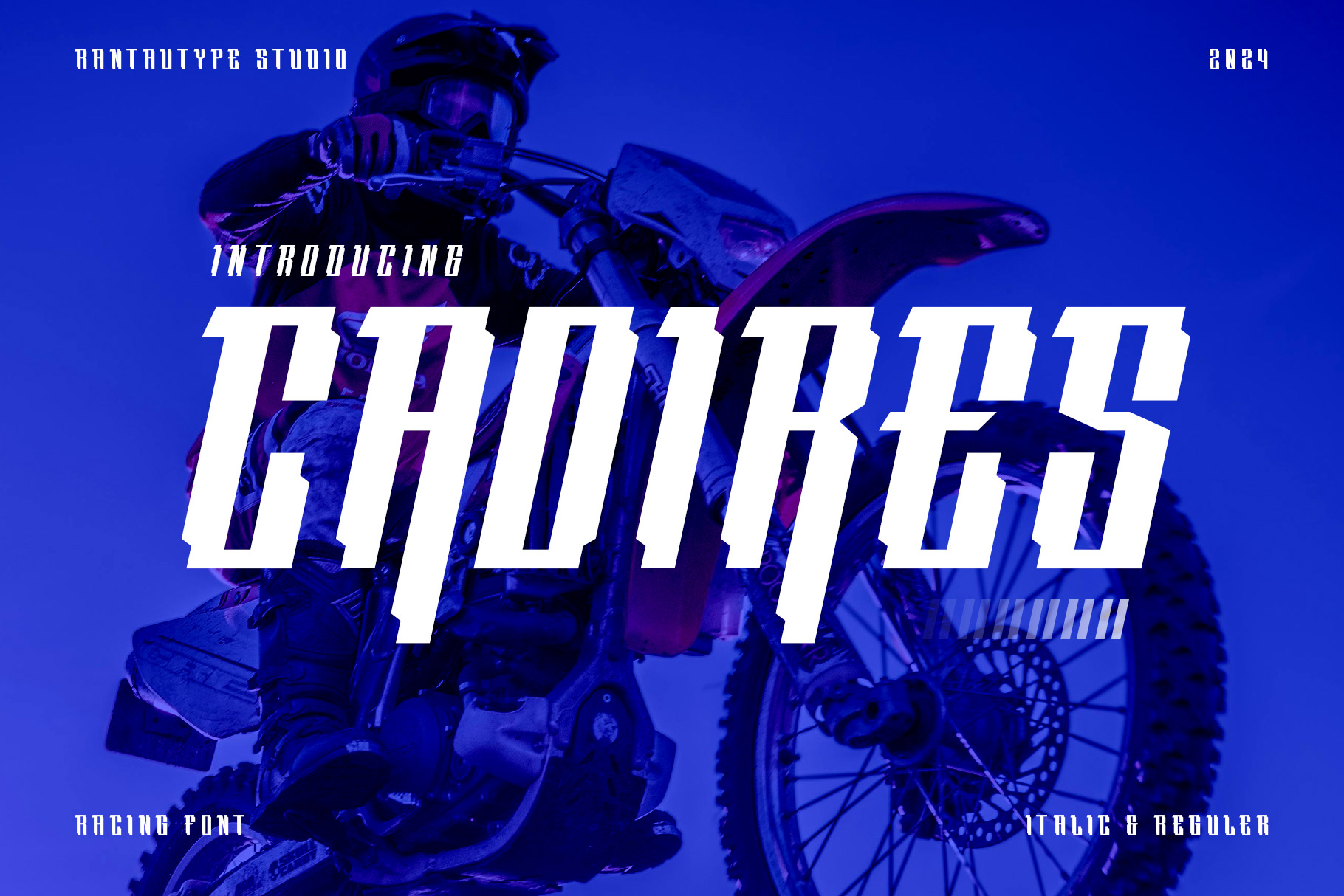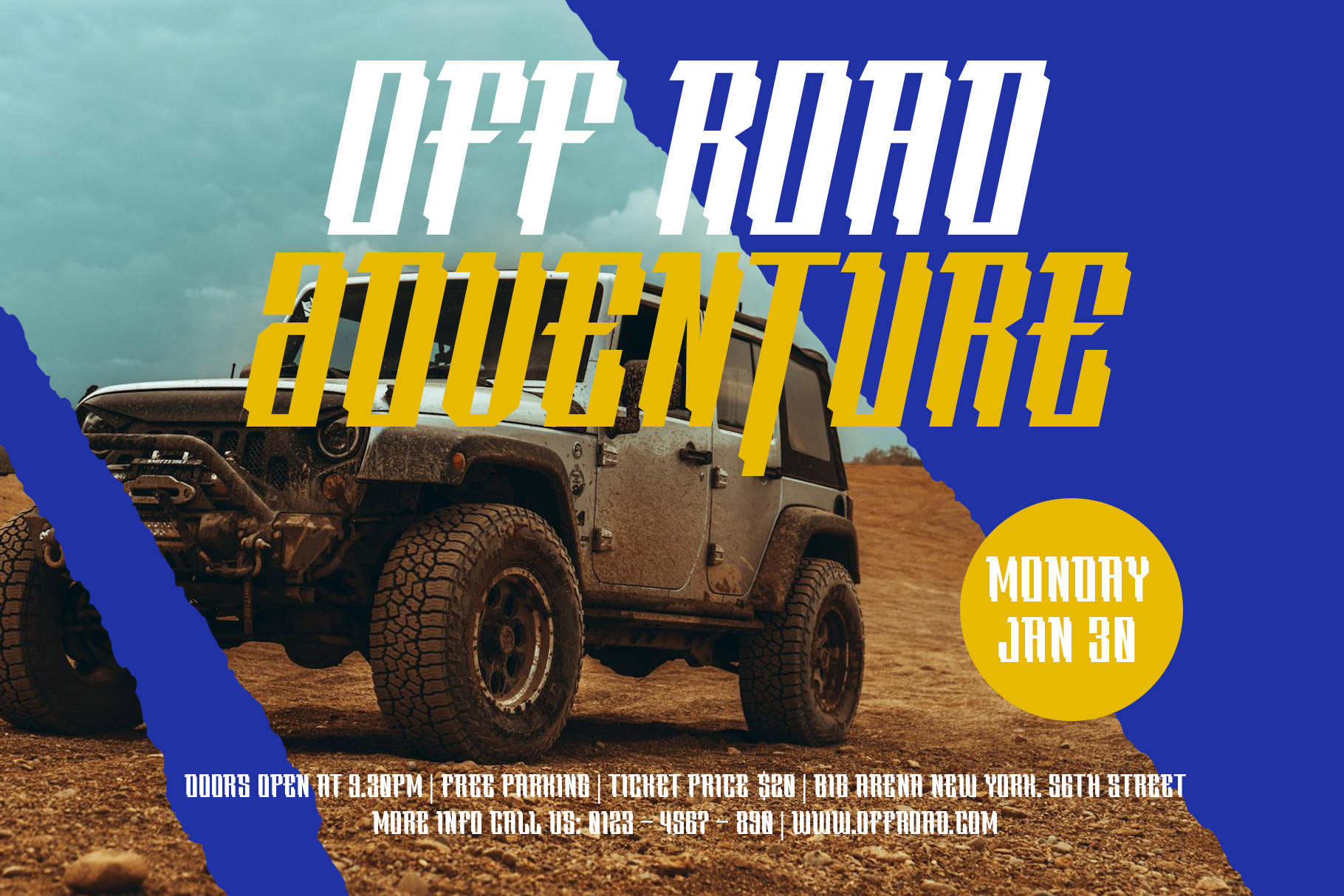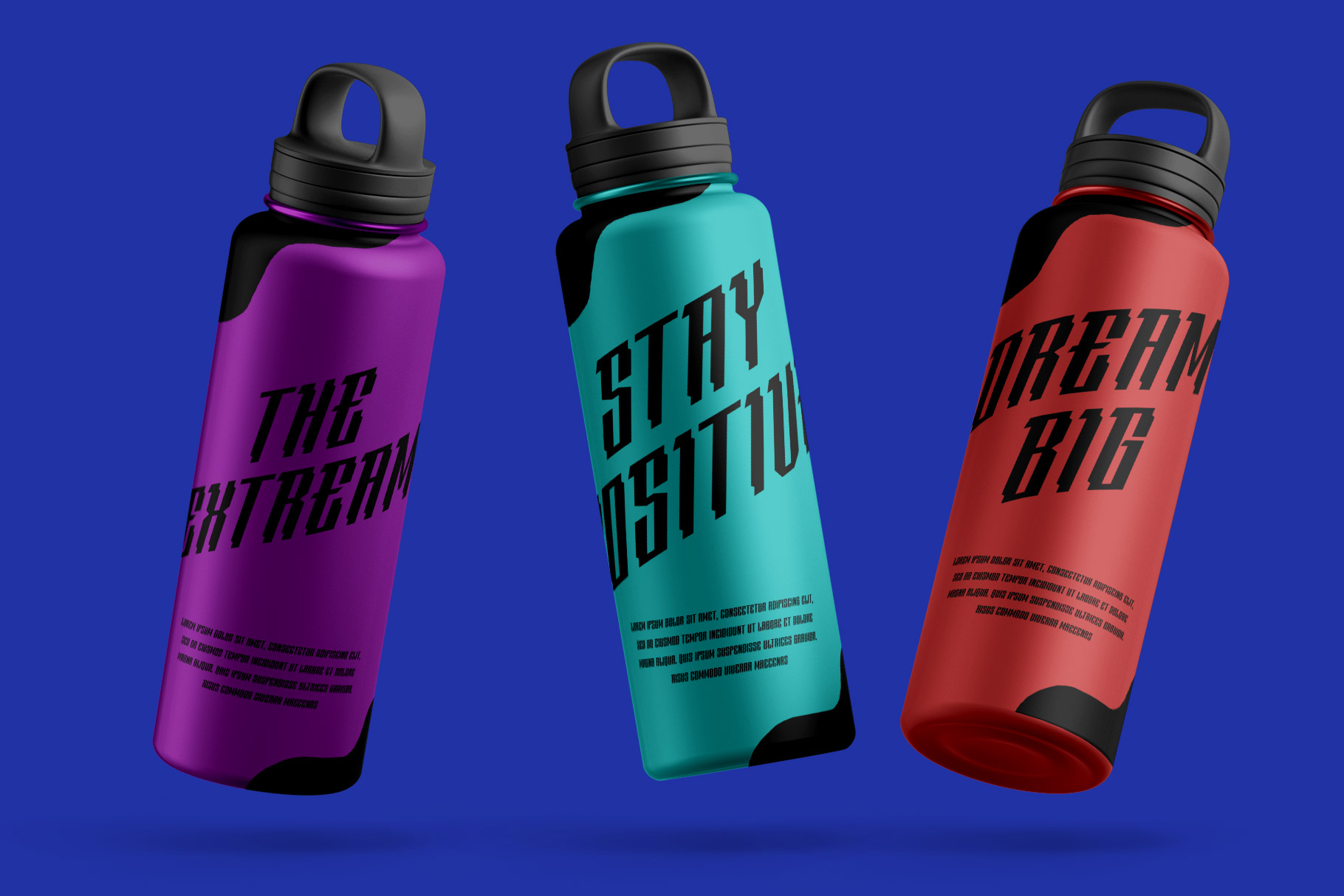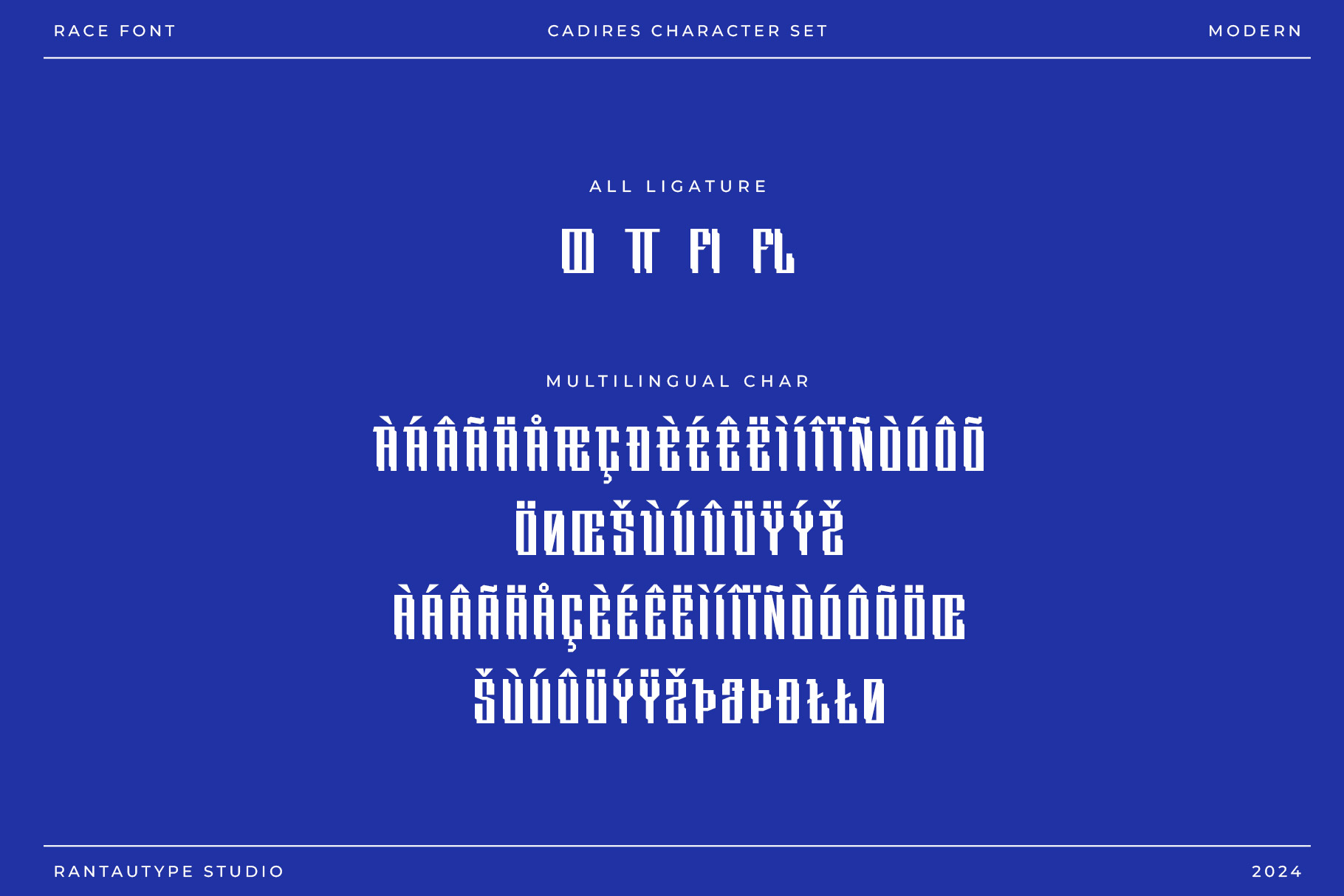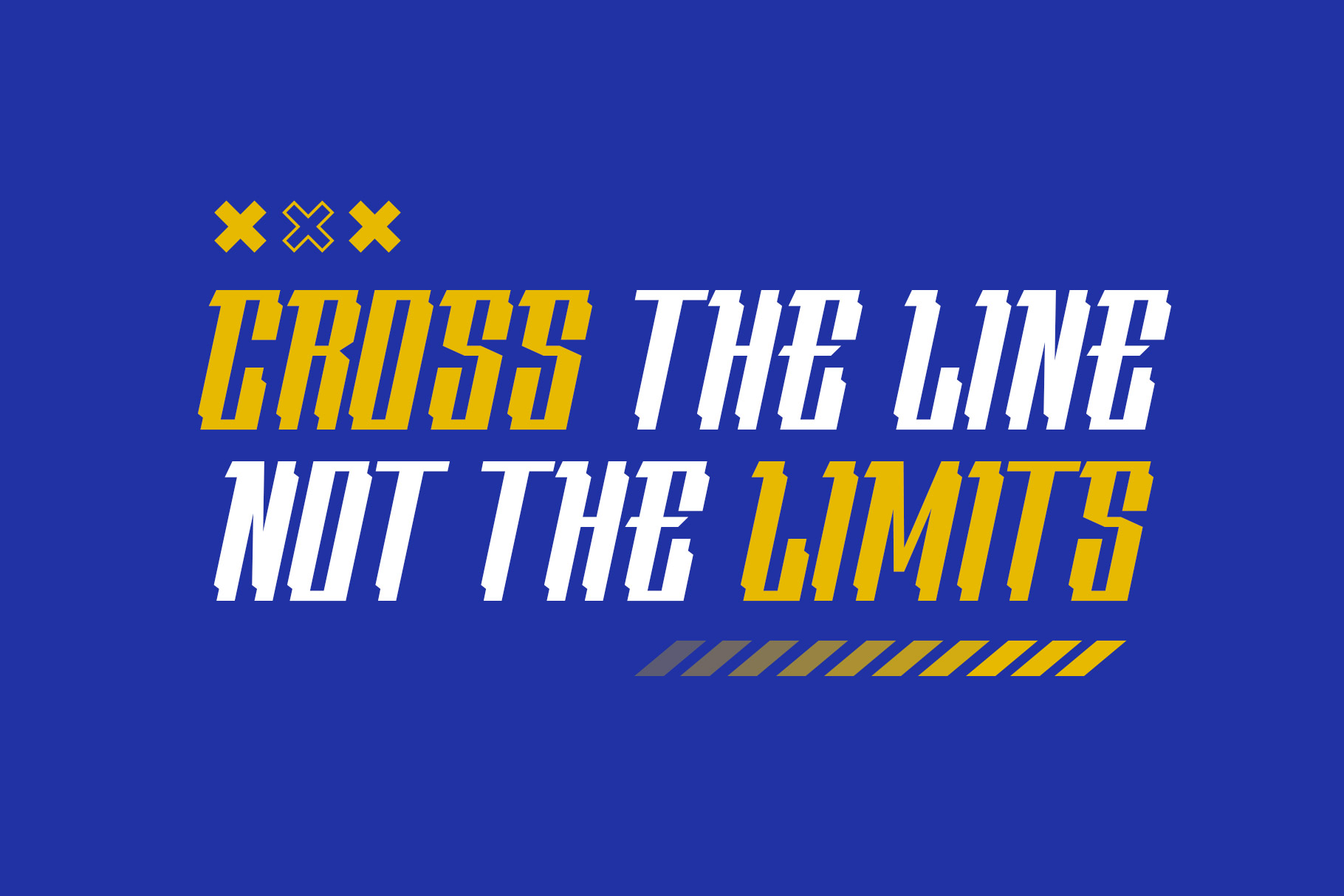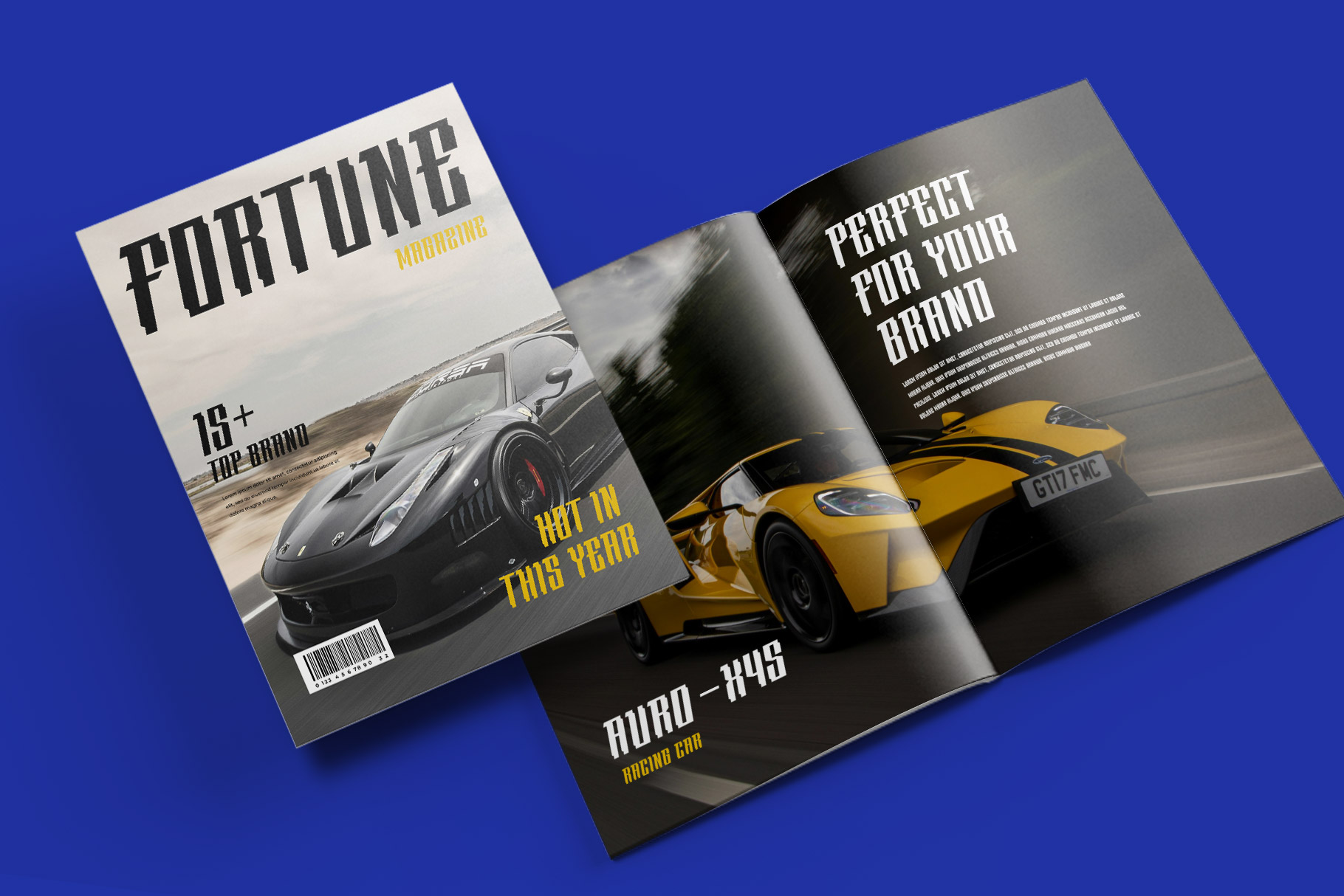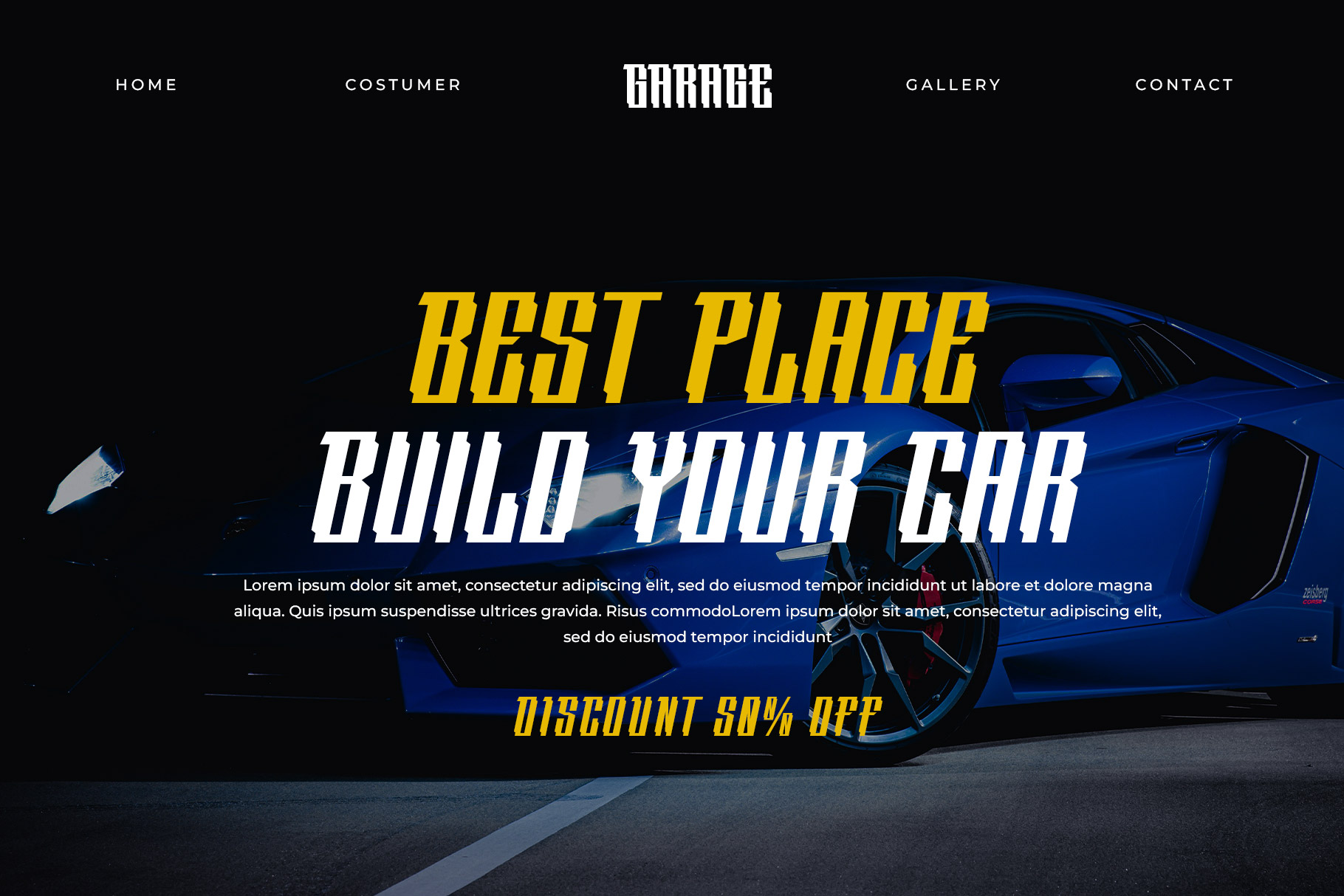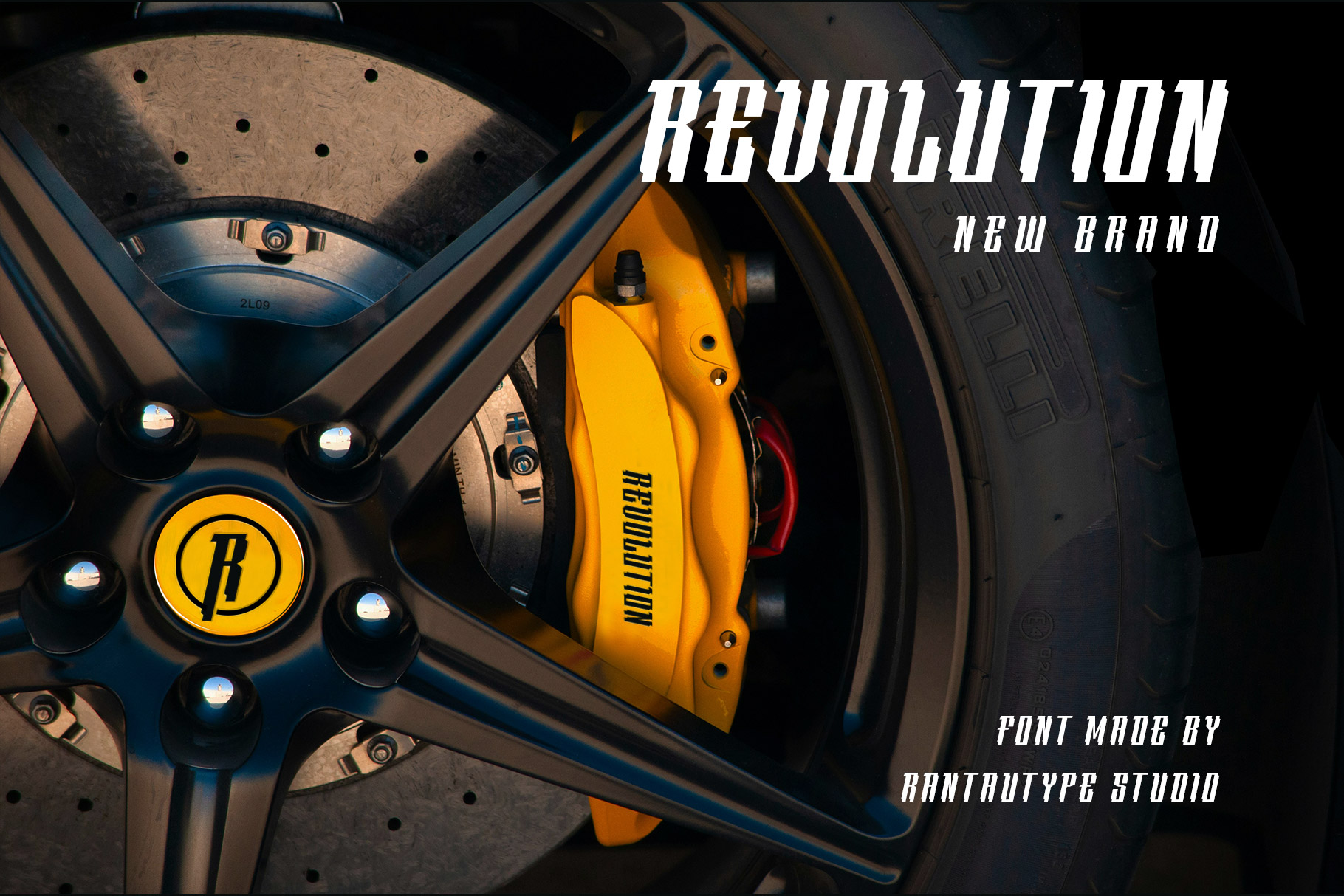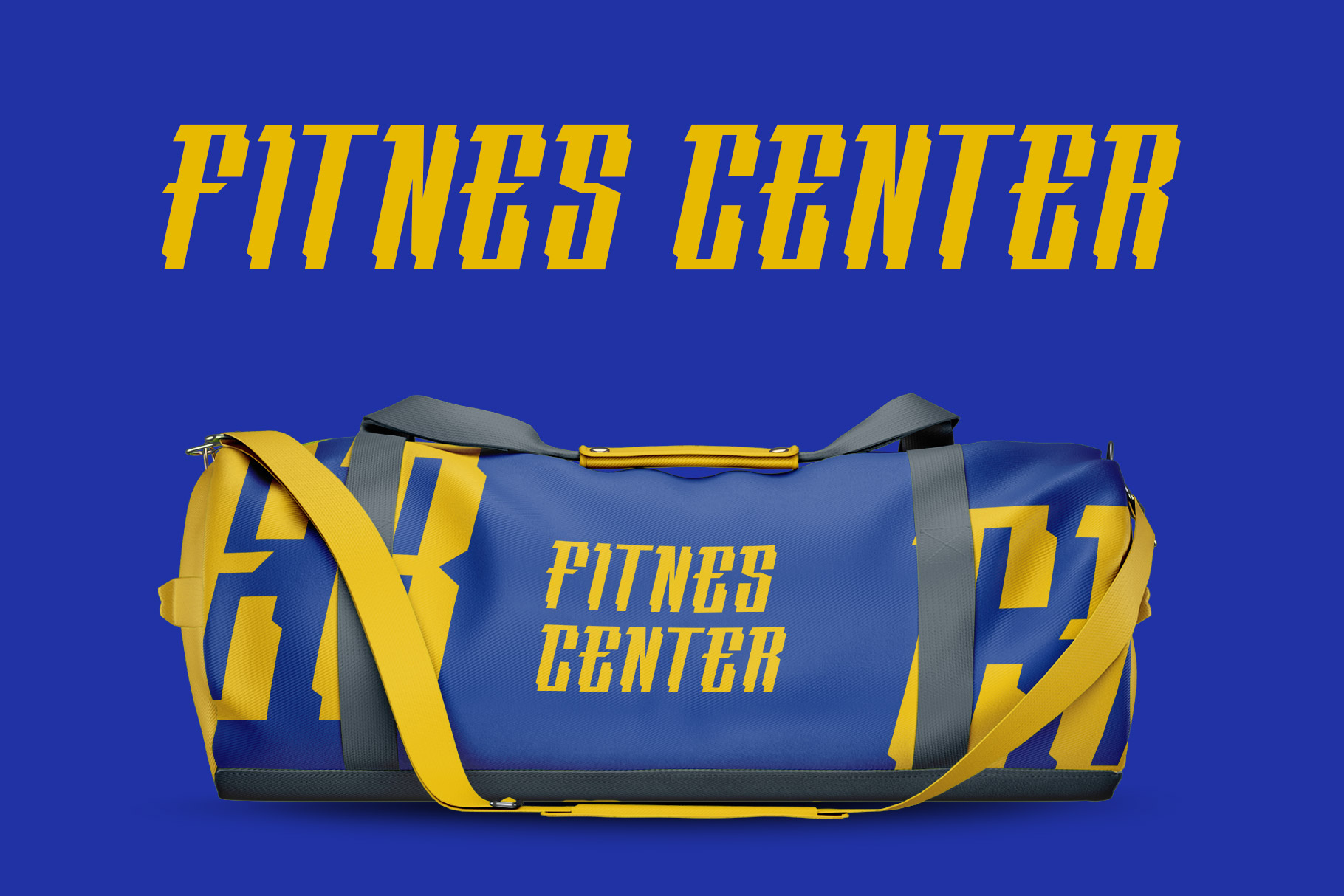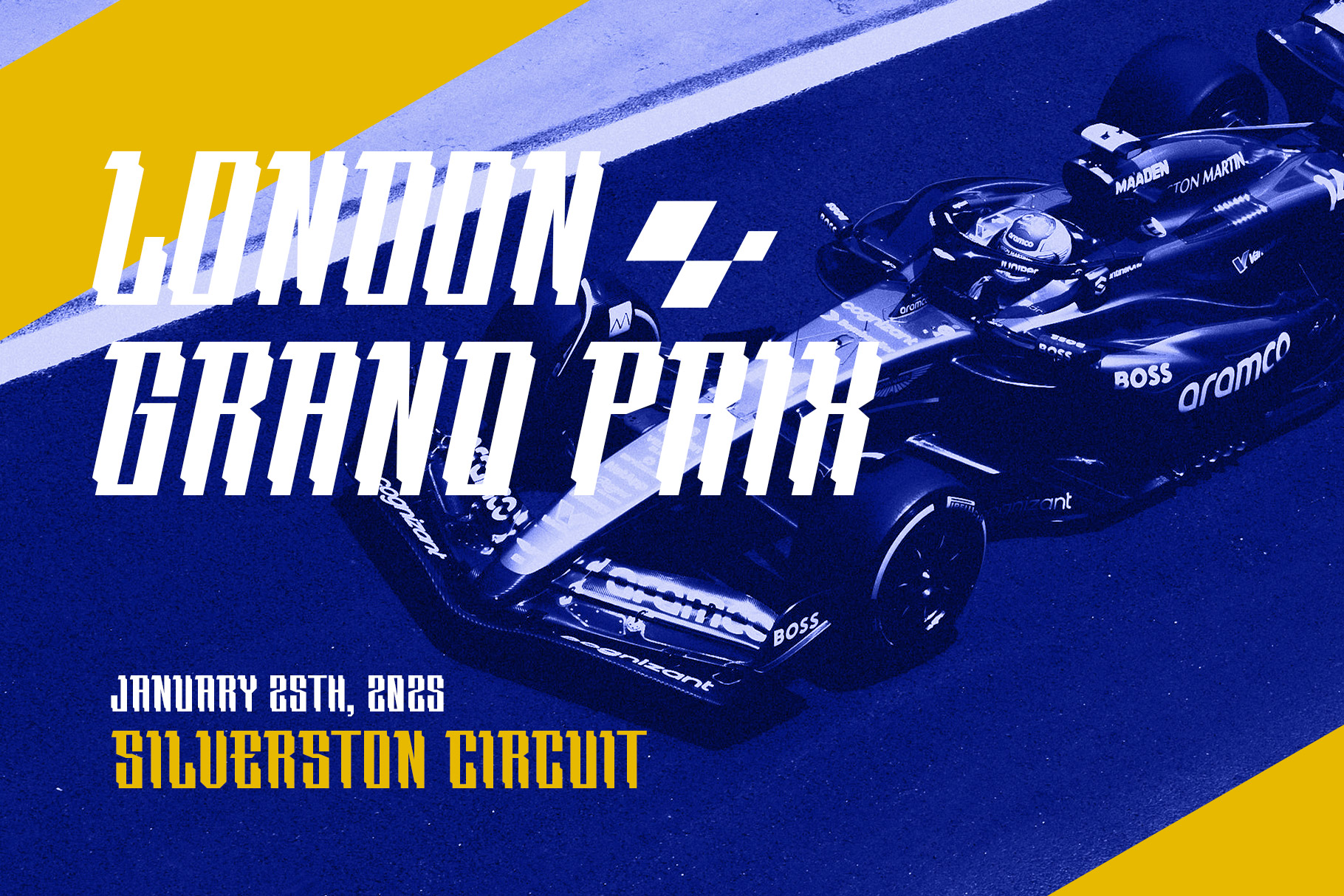
Cadires Racing Font
Cadires is racing font made with love and passion. Cadires come with strong character and modern look to create your design project awesome.
Cadires is a perfectly choice for any creative endeavor, creating, modern, chic, lifestyle design such as logotype, title, cover, branding, invitations, wedding designs, display and magazine, social media posts, advertisements, printed quotes, product packaging, corporate brand, product designs, labels, photography, watermarks, special events and any other project with racing touch.